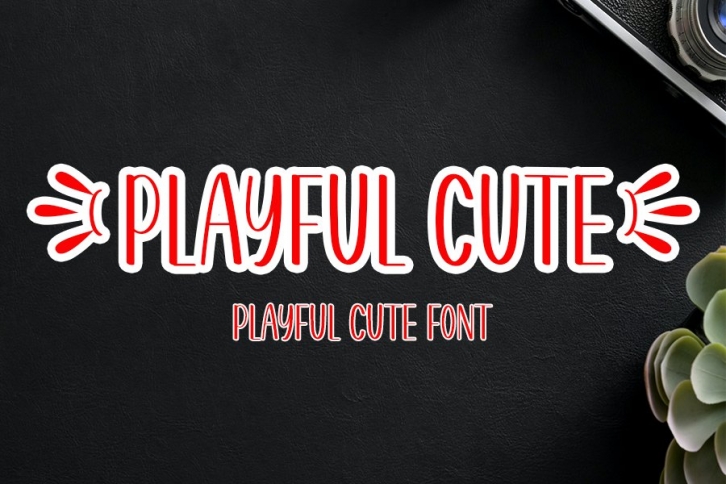
Playful Cute is a trendy and unique font with an authentic style. It was designed by InermediaSTUDIO and it's a great choice for creative people who need such a font. It was released on August 8, 2020 and the file size is 1.87 MB. Playful Cute will add an organic vibe to any design idea!